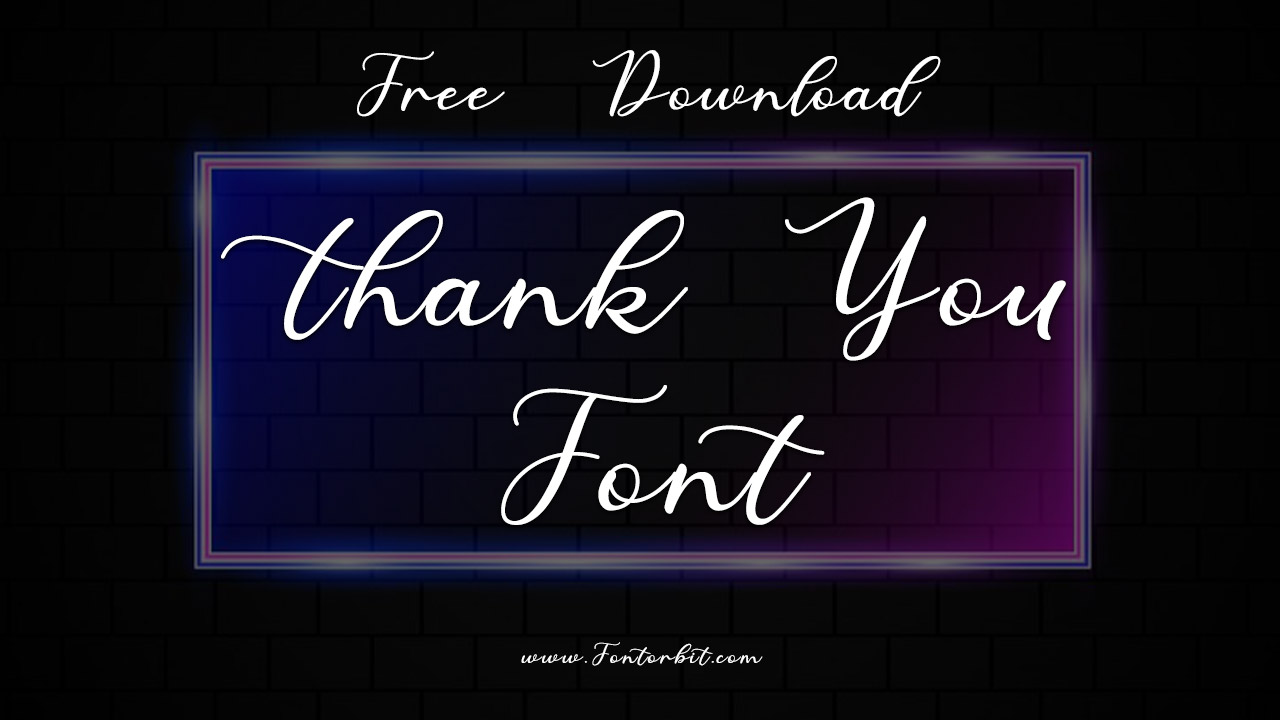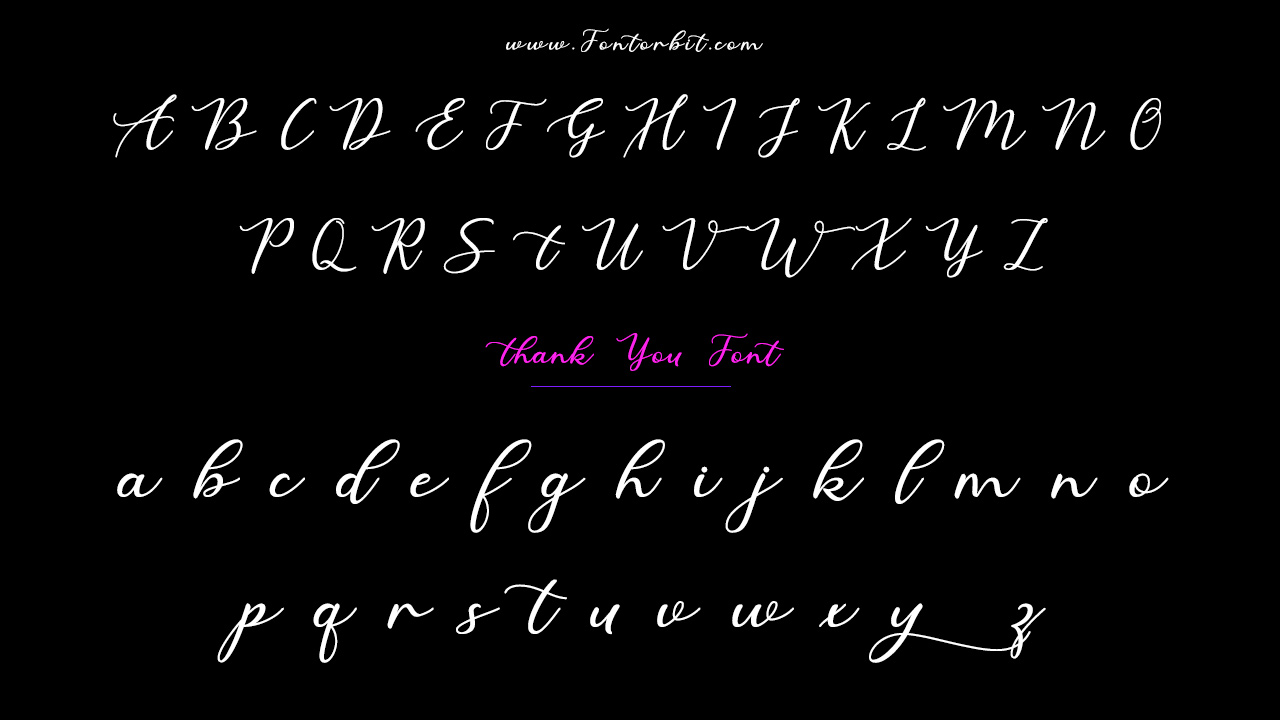
The “Thank You” font is a beautiful calligraphic typeface designed by Graphix Line Studio. Released for personal use, this script font captures a graceful and artistic flair, making it perfect for various design applications. With over 1 million downloads, it showcases its popularity among users looking for an elegant typeface.
Thank You Font Family Includes
The “Thank You” font family focuses on delivering a stylish, handwritten look. The family includes:
Thank You Regular
Notable Uses Of Thank You
The “Thank You” font is frequently utilized in various contexts, including:
- Greeting Cards
- Logos and Branding
You should consider using the “Thank You” font for:
- Personal projects, such as scrapbook pages and journals
- Craft projects that require a calligraphic touch
- Social media graphics to enhance visual appeal
3.What Type Of Font Is Thank You?
It is a calligraphic script font.
4.Who Designed The Thank You Font?
Graphix Line Studio designed it.
6.Is There A Bold Version Of The Thank You Font?
No, currently, it only includes regular styles.